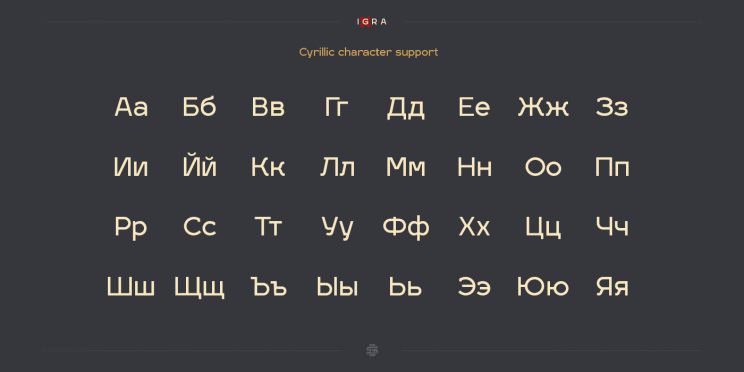
Today’s second freebie is yet again a sans serif font and it’s called Igra Sans. It was created by Sergei Godovalov, a graphic designer and typographer from Russia, and it’s perfect for logotypes and headlines. The font is available in one weight only and it comes with basic Latin and Cyrillic characters support, numbers, punctuation marks and glyphs.